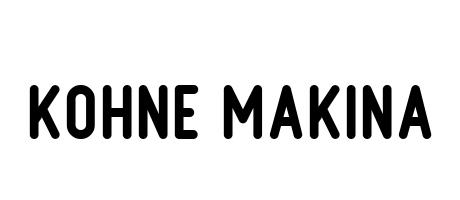
Kohne Makina
Kohne Makina: A bold, sans-serif typeface, exuding a strong and straightforward personality. Its chunky, uniform letters create a sense of stability and reliability, suitable for industrial or mechanical applications. The uppercase letters are consistent in weight and height, implying authority and directness. The overall style is clean and contemporary.